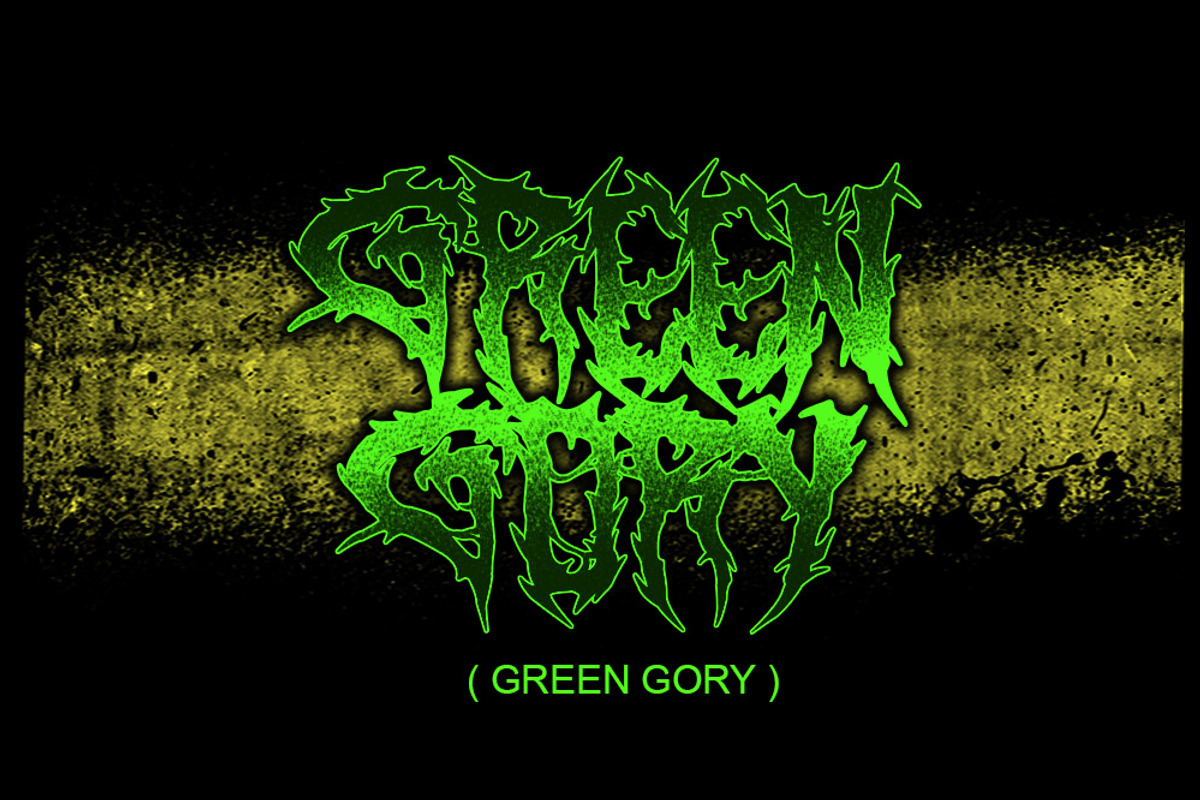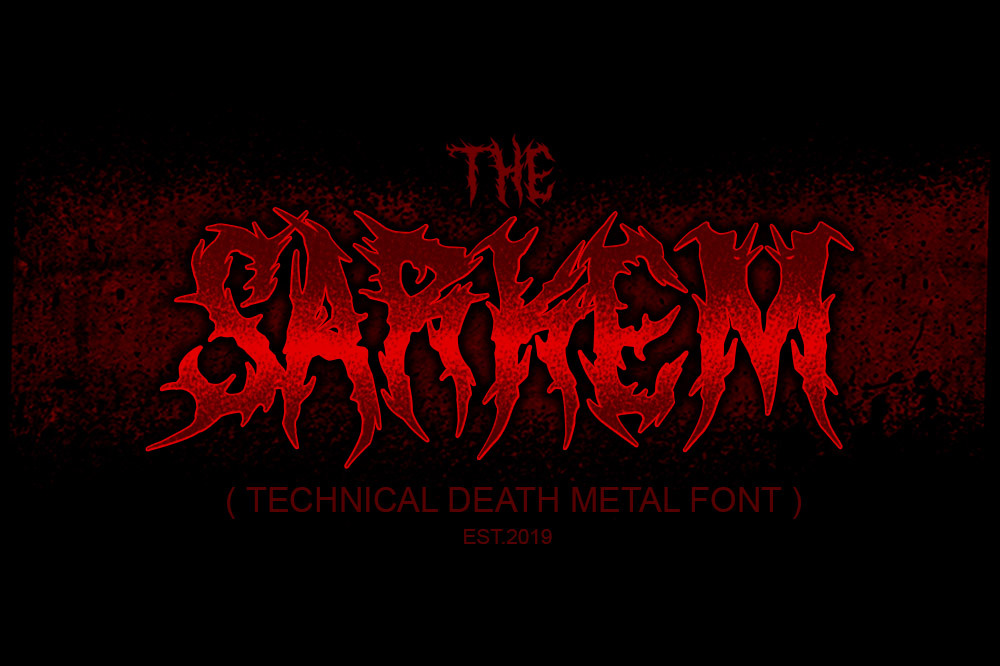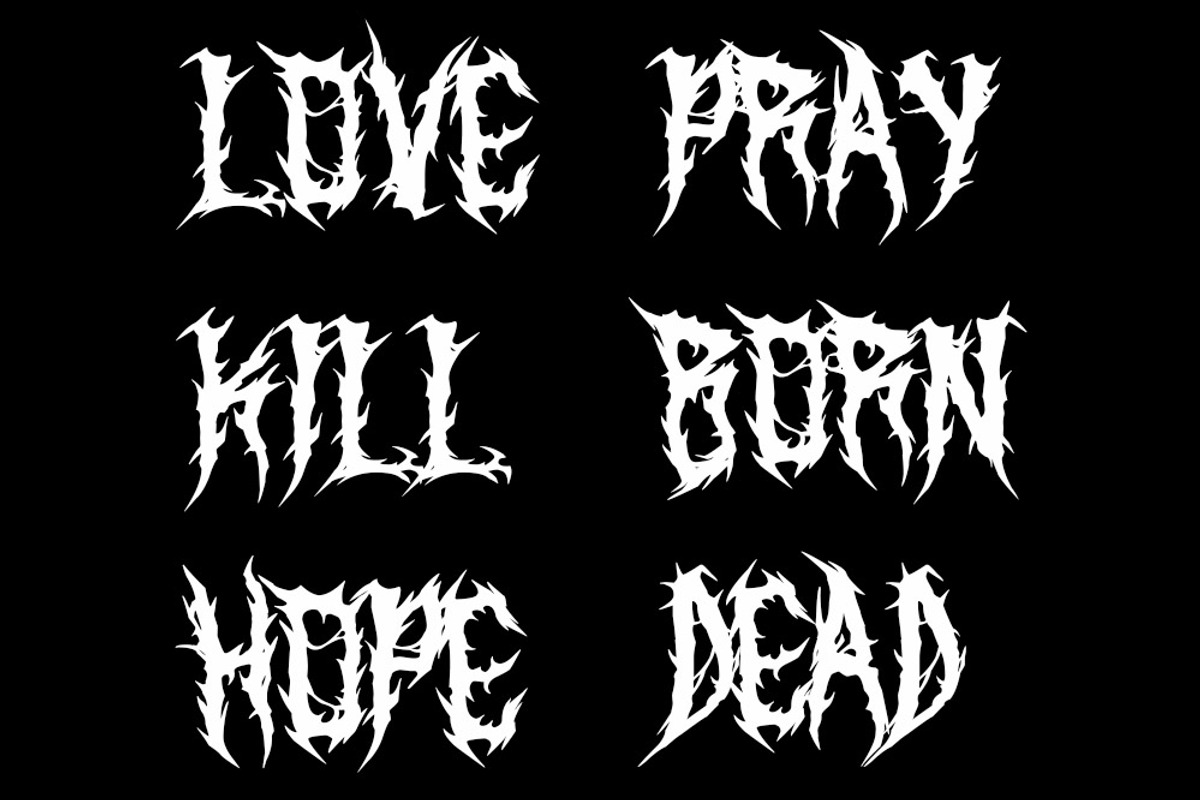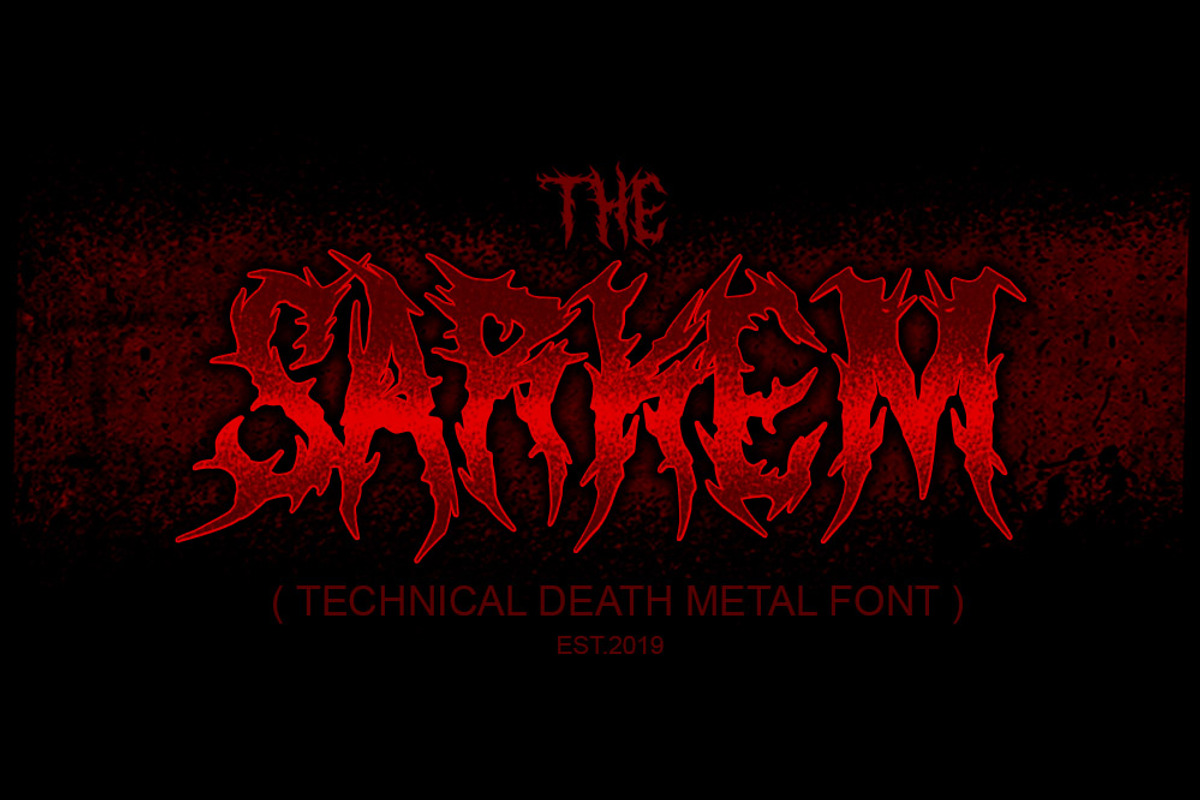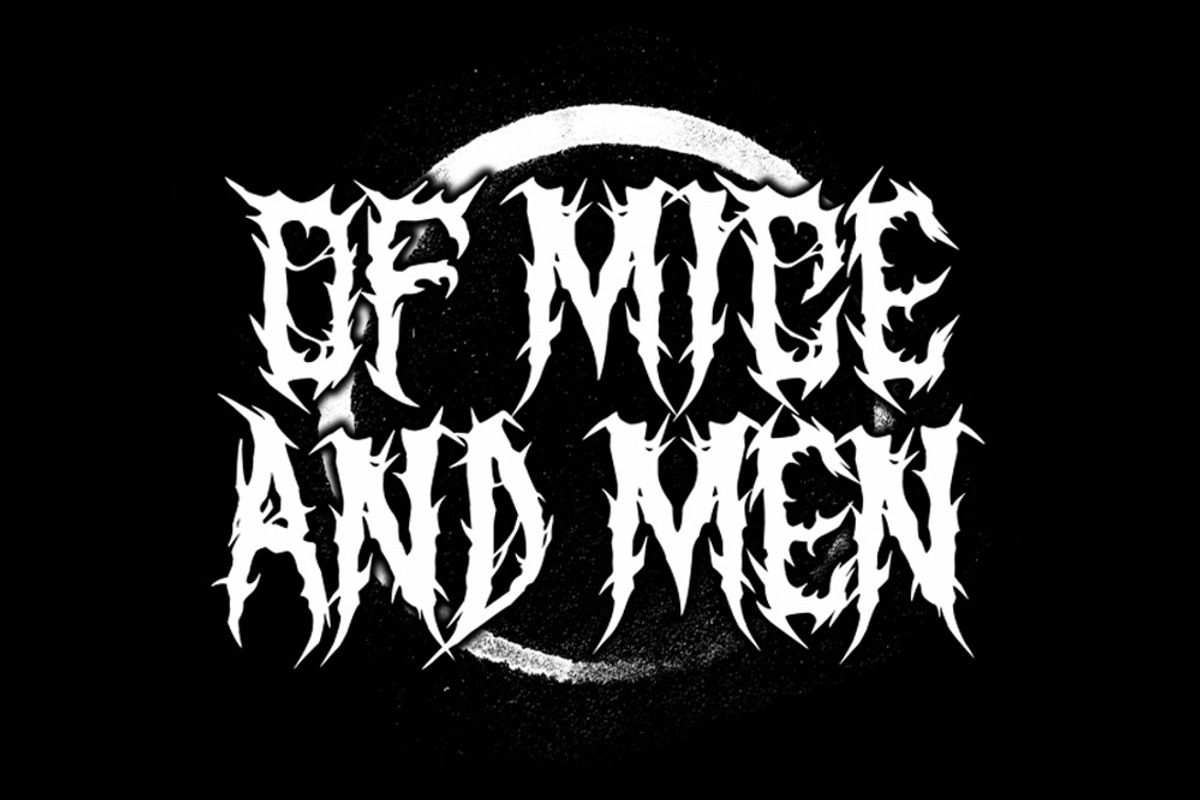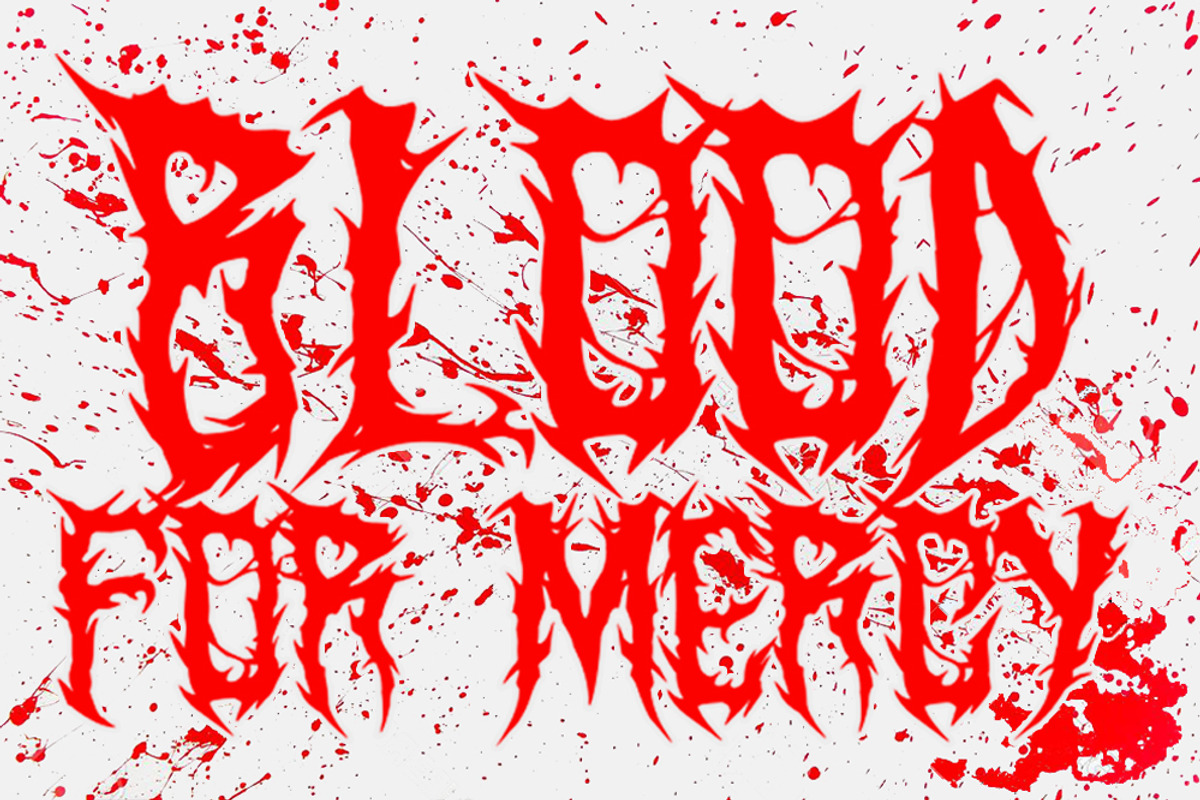
SARKEM / TECHNICAL DEATH METAL FONT
introducing the latest metal font. very suitable for logos, clothing, branding and others. very easy to use without the hassle of drawing, just by purchasing this font you can immediately use it for all your needs.